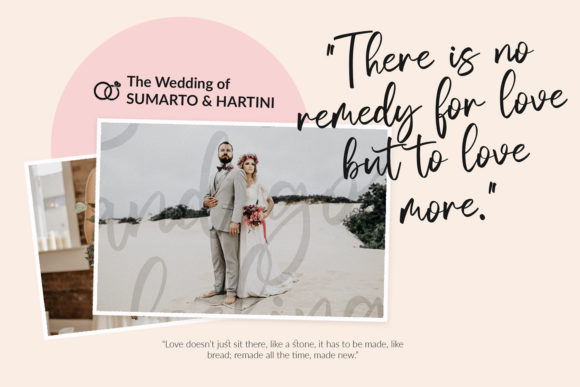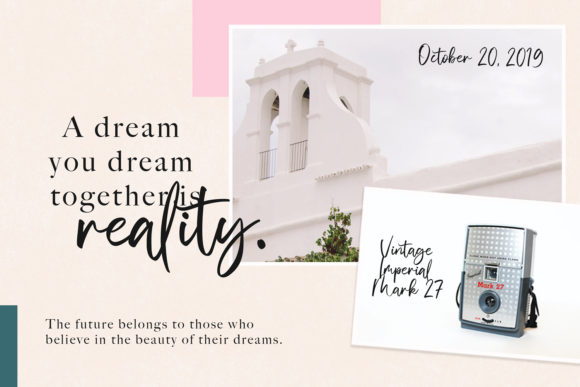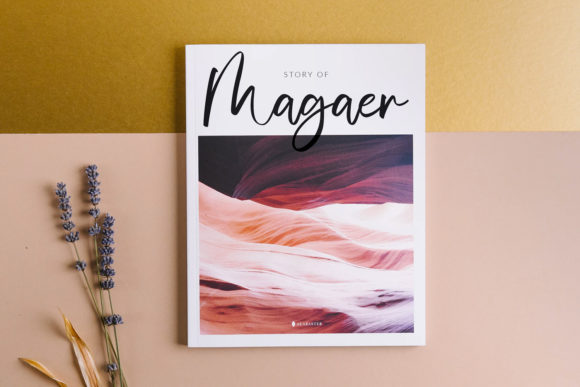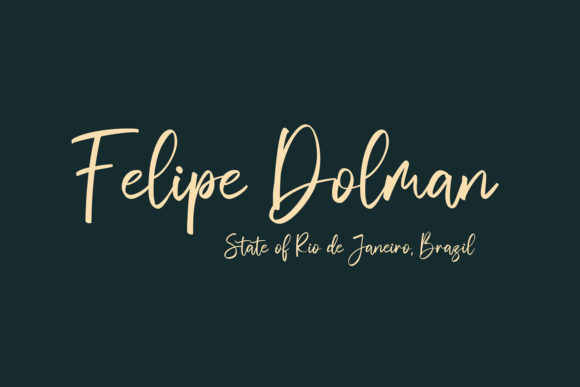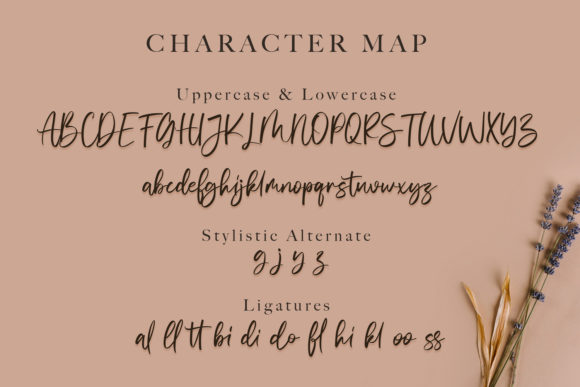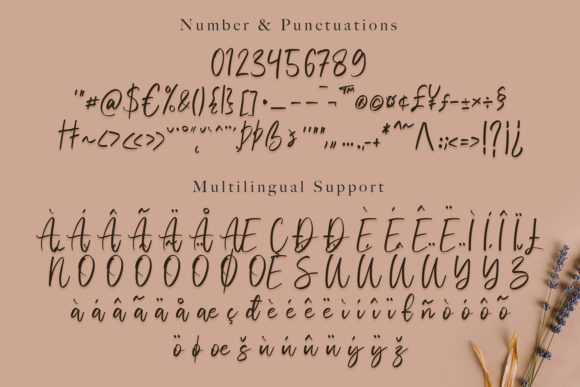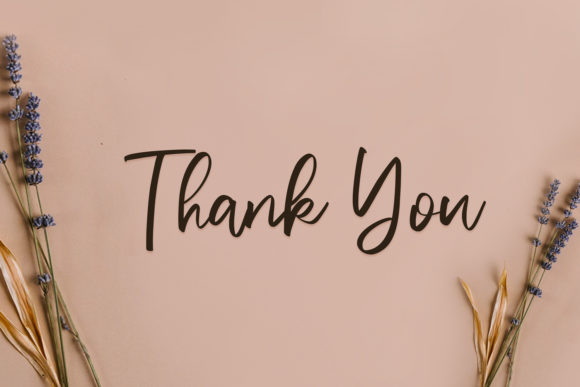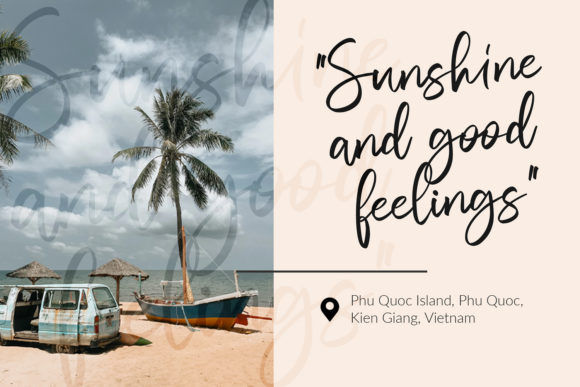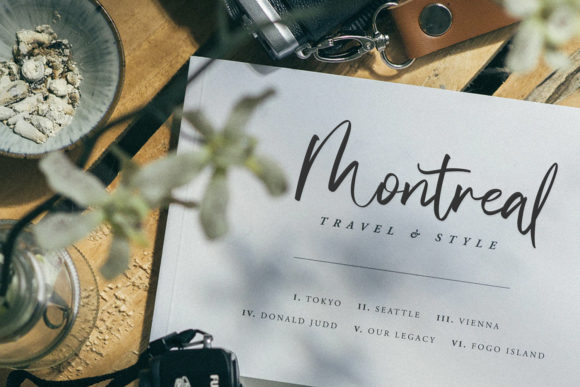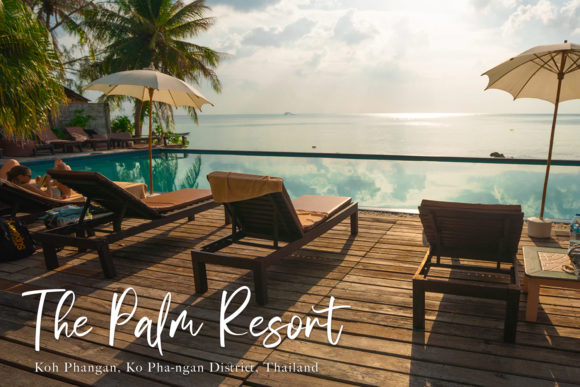
Vivy Aquilla Font
About Vivy Aquilla Font
Vivy Aquilla is a modern handwritten font, carefully handcrafted to become a true favorite. Its casual charm makes it appear wonderfully down-to-earth, readable and, ultimately, incredibly versatile. Whether it’s for web, print, moving images or anything else – Vivy Aquilla will look spectacular.